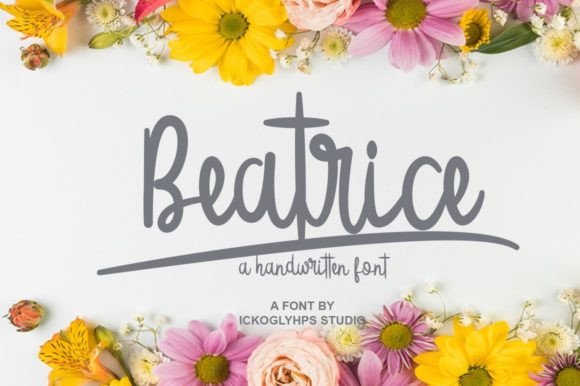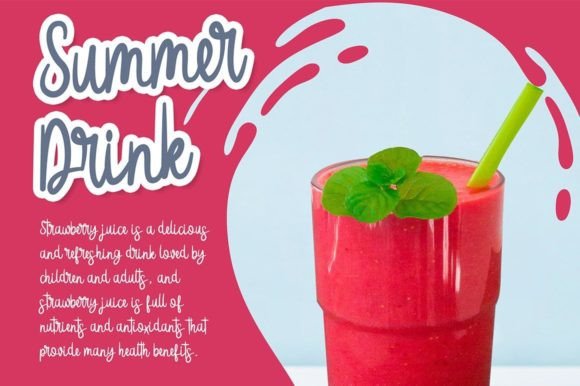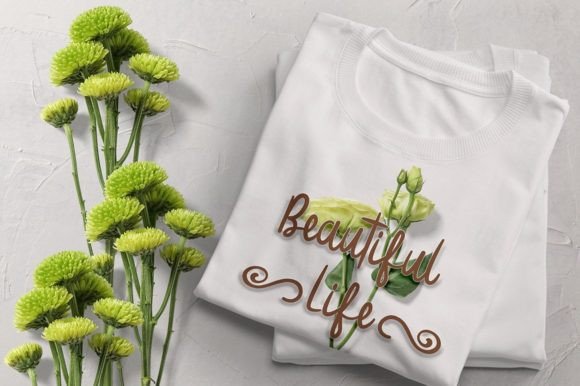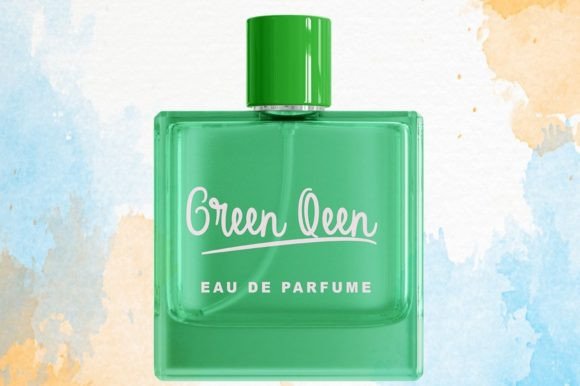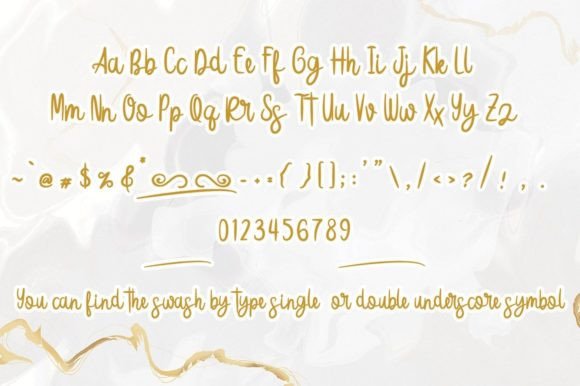
Beatrice Font
About Beatrice Font
Beatrice is a cute and adorable handwritten font that brings an elegant touch to your favorite projects. Designed with a sense of charm, this font is versatile and well-suited for a variety of creative applications. Whether you’re working on wedding invitations, calligraphy, quotes, feminine or organic logos, small business branding, business cards, packaging, and more, Beatrice adds a delightful and expressive quality to your designs.
The cute and adorable characteristics of Beatrice are evident in its carefully crafted letterforms. The font exudes a sense of warmth and playfulness, making it perfect for projects that require a touch of charm and elegance.
Beatrice’s versatility makes it a valuable asset for a range of design applications, especially those related to weddings, feminine branding, and organic aesthetics. Its handwritten style adds a personal and authentic touch, enhancing the overall appeal of your creative endeavors.
Incorporate Beatrice into your design projects, and experience how it elevates the aesthetics of your work. Whether used for wedding invitations or small business branding, this cute and adorable handwritten font adds a touch of elegance and personality to your designs. Let Beatrice be the font that brings a delightful and charming vibe to your creative ventures.